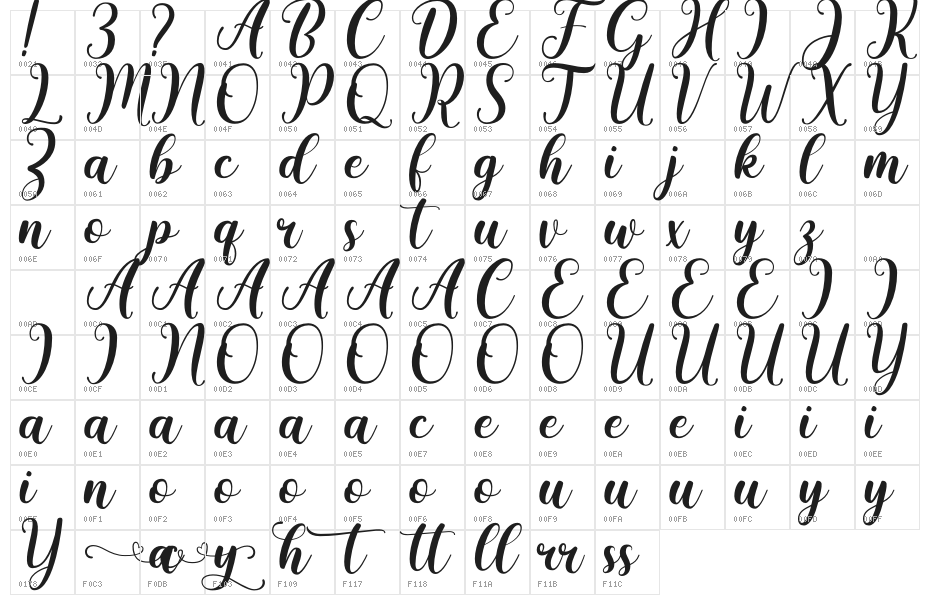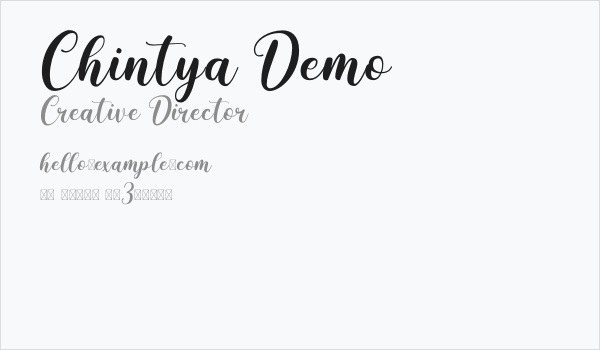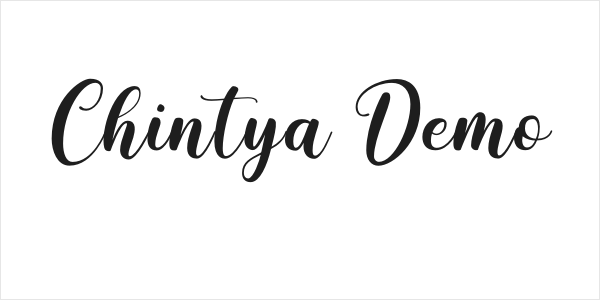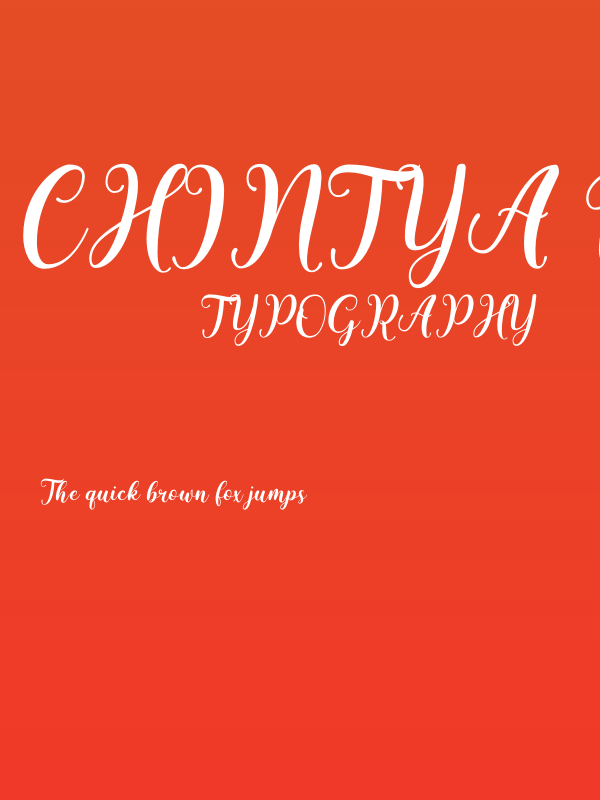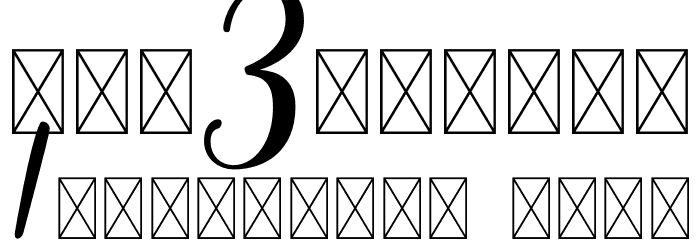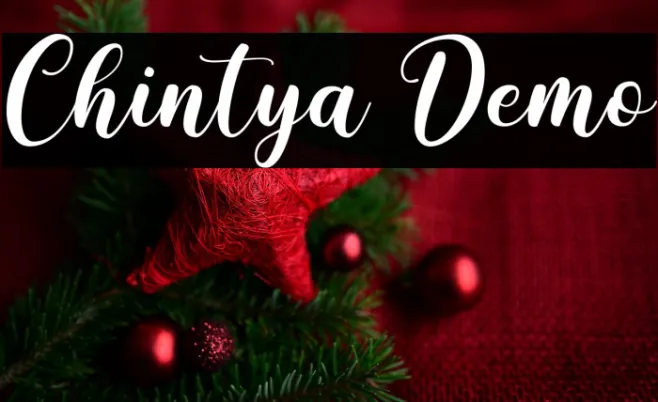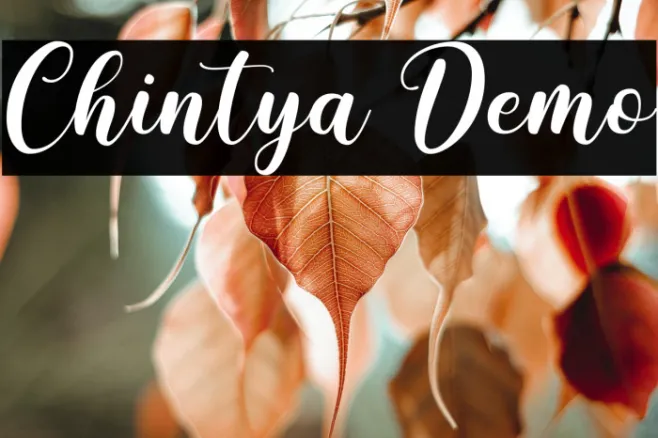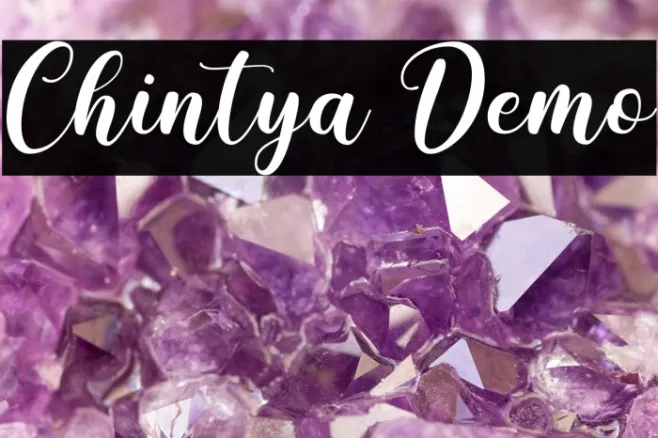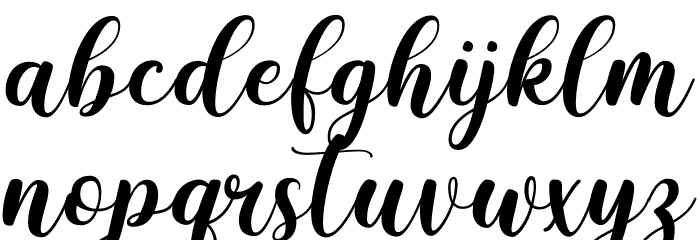
Chintya Demo Font
Chintya Demo Description
This font features an elegant and flowing script style, characterized by its smooth, cursive letterforms that convey a sense of sophistication and grace. The uppercase letters are particularly ornate, with sweeping curves and flourishes that add a decorative touch. The lowercase letters maintain a consistent flow, enhancing readability while retaining the font's artistic flair. The overall design is balanced, with moderate contrast between thick and thin strokes, giving it a dynamic yet harmonious appearance. This font is ideal for projects that require a touch of elegance and refinement.